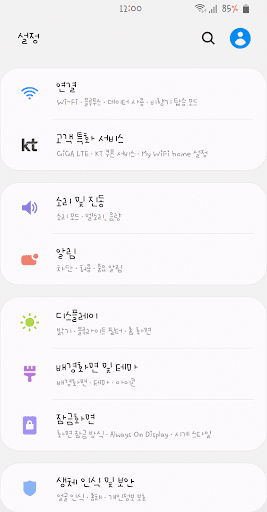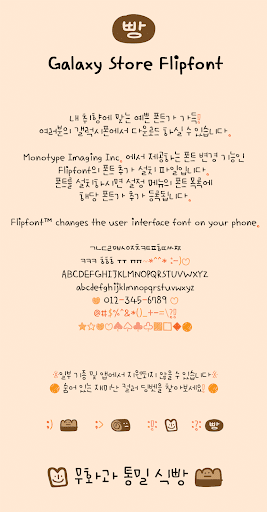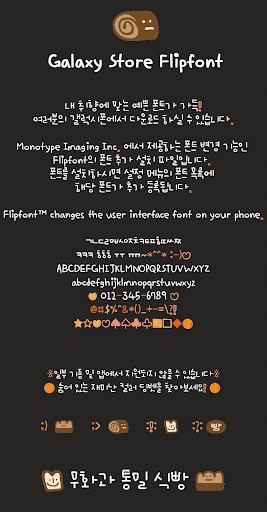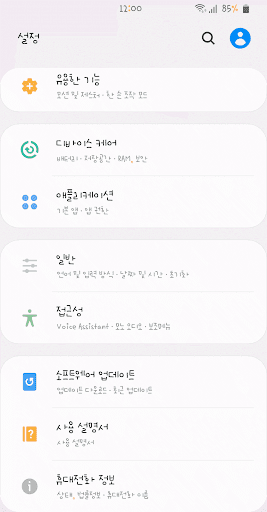
AhFigbread™ Korean Flipfont
AhFigbread
[AhFigbread] is the successor to [Ah cranberrybread] The two fonts may look similar at first glance, but they're long
Set the vowels short, and put a lot of affection so that each of the grasps can give off a cuter feeling
It's been produced.
When written in sentences, it looks crooked and playful, but it's a font that feels like Ah Font, which was carefully pressed and written
It is characterized by a natural handwriting pattern. In particular, the elongated "h" adds to the fun,
The writing line was set to the upper end to add free fun to the overall magnetic form while being visually stable.
There's a special hidden dingbet hidden, so please look for it. :>